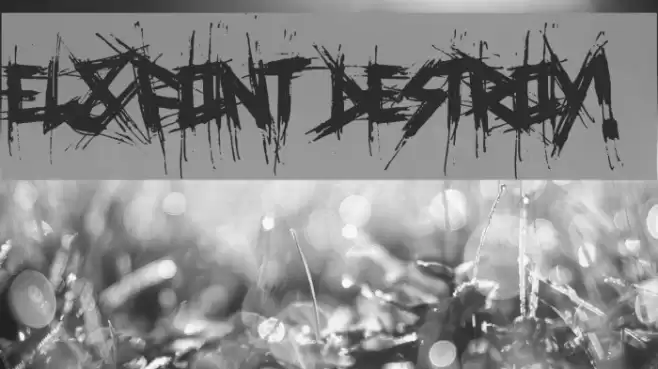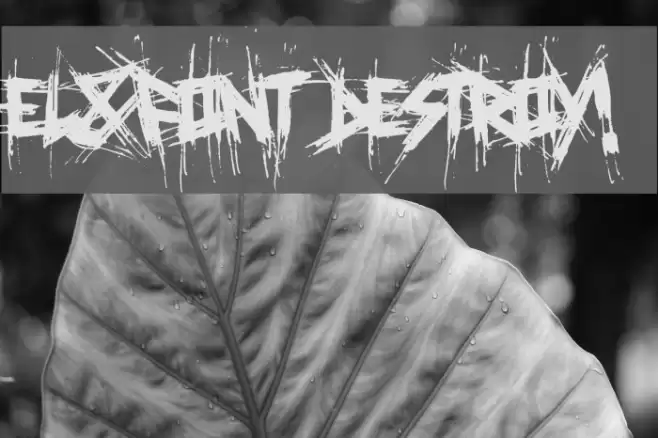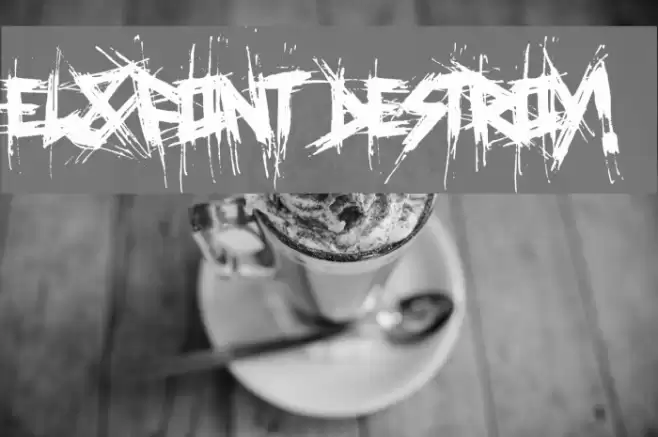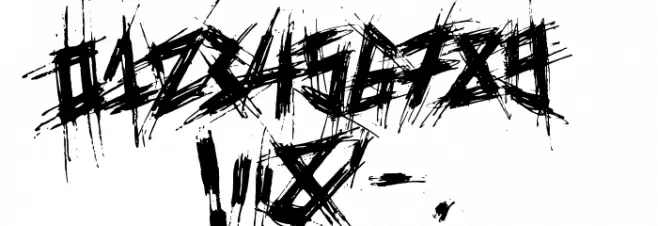
El&Font Destroy! Font
El&Font Destroy! Description
This font features a highly distressed and chaotic design, characterized by sharp, jagged edges and a rough, hand-drawn appearance. The letters are heavily stylized with an aggressive, almost rebellious aesthetic, making it stand out with its unique and edgy look. The strokes are uneven and appear as if they were scratched or painted with a brush, adding to its raw and unrefined style. This font is ideal for projects that require a bold statement or an unconventional, artistic touch. The overall impression is one of intensity and dynamism, suitable for capturing attention and conveying a sense of urgency or excitement.
A distressed, chaotic font with sharp, jagged edges and a rebellious aesthetic from Uncategorized fonts.
- Proposed Projects: Album covers, graffiti art, extreme sports branding, horror movie posters, edgy fashion labels.
- Character Spacing: Tight
- Overall Style: Modern, Edgy
- Use Case: Logos, Posters, Headlines